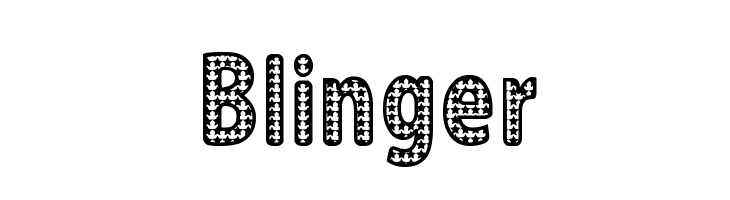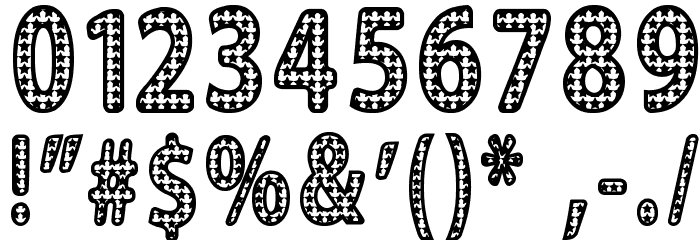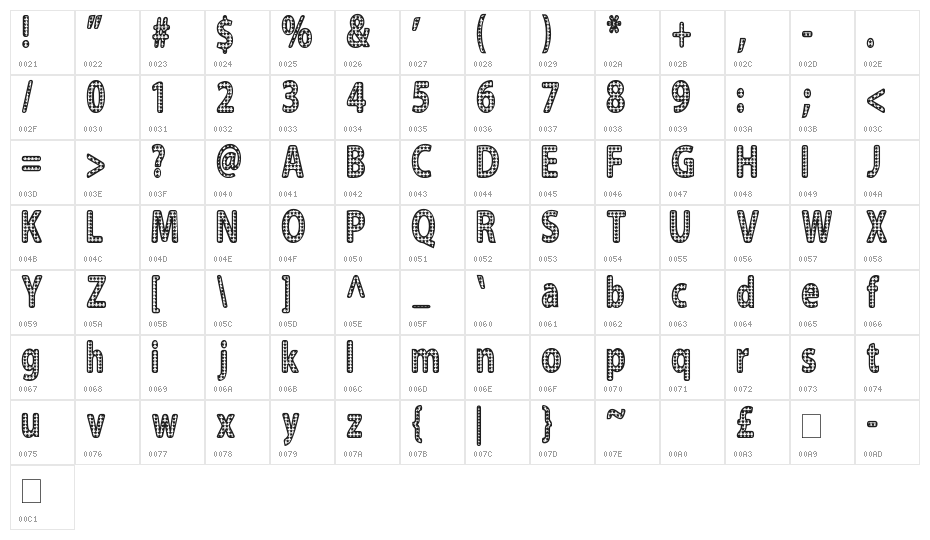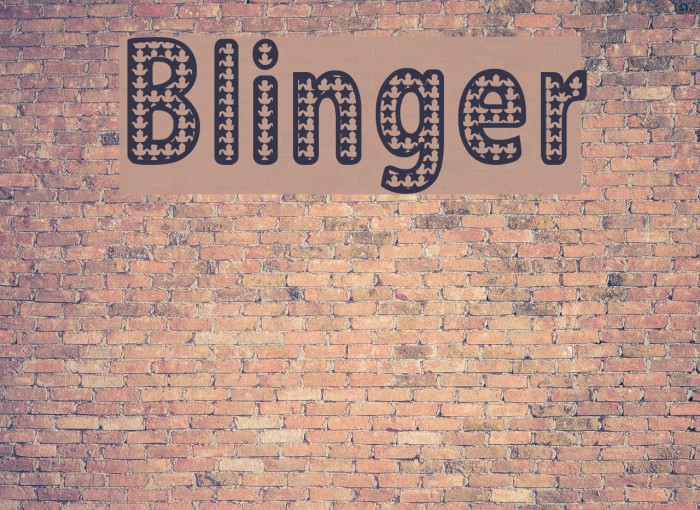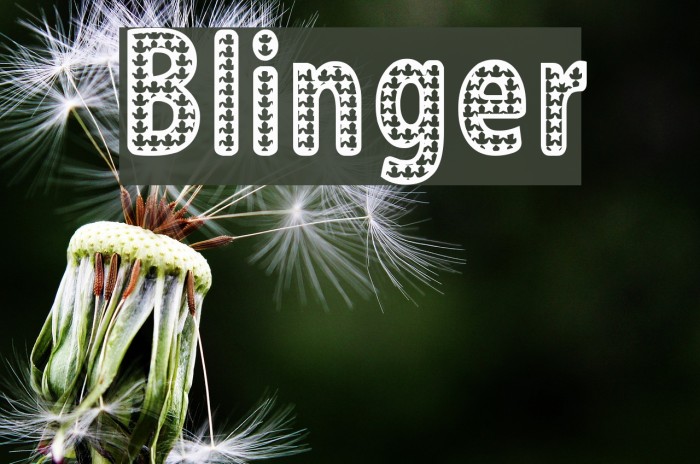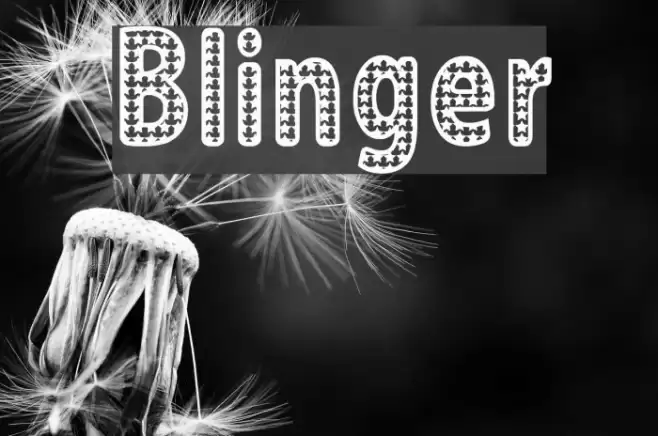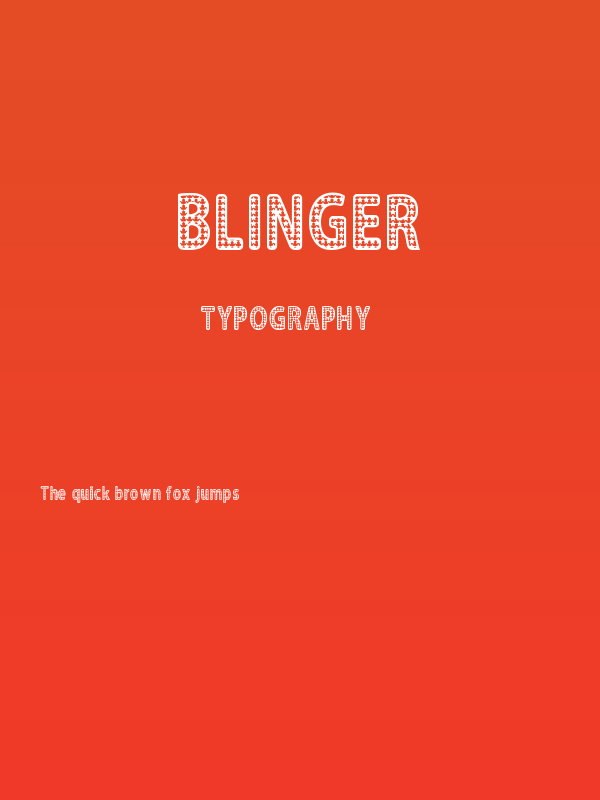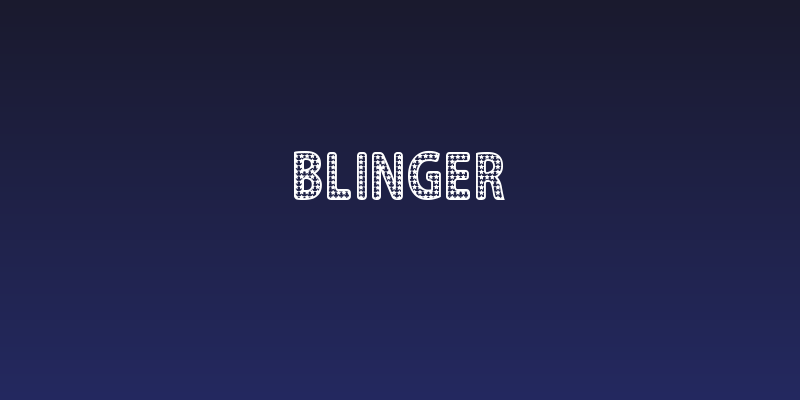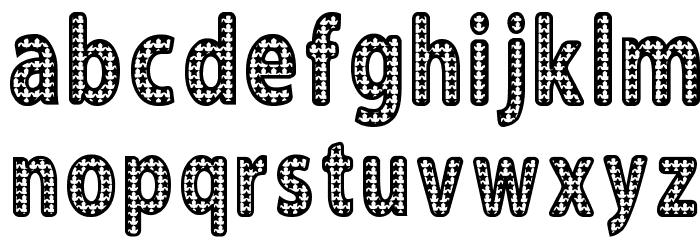
Blinger Font
Blinger Description
This font features a bold, decorative style with a unique pattern of stars embedded within each character. The letters are outlined with a thick black border, enhancing their visibility and making them stand out. The uppercase and lowercase letters maintain a consistent design, with rounded edges and a playful aesthetic. The numbers and special characters follow the same decorative theme, ensuring uniformity across all glyphs. This font is eye-catching and ideal for projects that require a touch of whimsy and flair.
| Overall Style | Playful, Decorative |
| Proposed Projects | Ideal for party invitations, children's book covers, festive banners, and playful branding materials. |